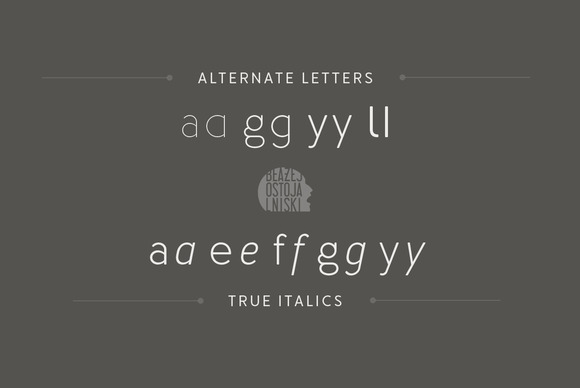
Introduction to Merlo Round Font Font
Fonts play a crucial role in design, and the Merlo Round Font font is a typeface that brings both character and versatility to any project. Whether you’re working on a branding project, a website, or a print design, the Merlo Round Font font offers a unique style that can elevate your work.
About the Merlo Round Font The Merlo Round Font Family can be seen as the younger brother of the Merlo Family.
The Merlo Round font family contains 12 different font variations with lower- and uppercase characters The Merlo Round Font was inspired by a Polish Magazine called βYou and Meβ.
Key Features of Merlo Round Font Font
Why Choose Merlo Round Font Font?
The Merlo Round Font font is more than just a typeface β it’s a design tool that helps you communicate your message with style and clarity. Its unique character set and versatile design make it suitable for a wide range of applications, from elegant invitations to bold headlines.
With its carefully crafted letterforms and balanced proportions, the Merlo Round Font font ensures readability and visual appeal across all mediums.
What makes Merlo Round Font font special?
The Merlo Round Font font stands out with its unique design, exceptional readability, and versatility across various design applications.